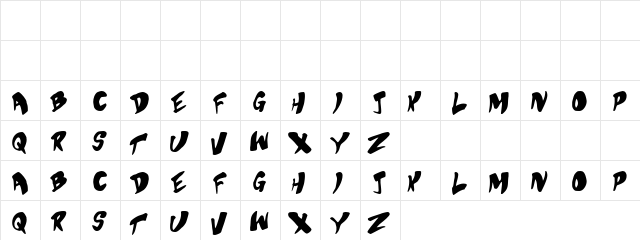
Bubblegum Superstar Regular
Design Context for Bubblegum Superstar Typeface
Bubblegum Superstar has an approachable, lighthearted character — its loose, expressive forms are well-suited to children's content, casual branding, and fun-first design.
Font Pairing: Pairs well with a rounded or humanist sans for body copy, maintaining the friendly tone without relying on Bubblegum Superstar to carry extended reading.
Pro Tip: Avoid using Bubblegum Superstar for long passages of text — it works best for headlines, labels, and short calls to action.